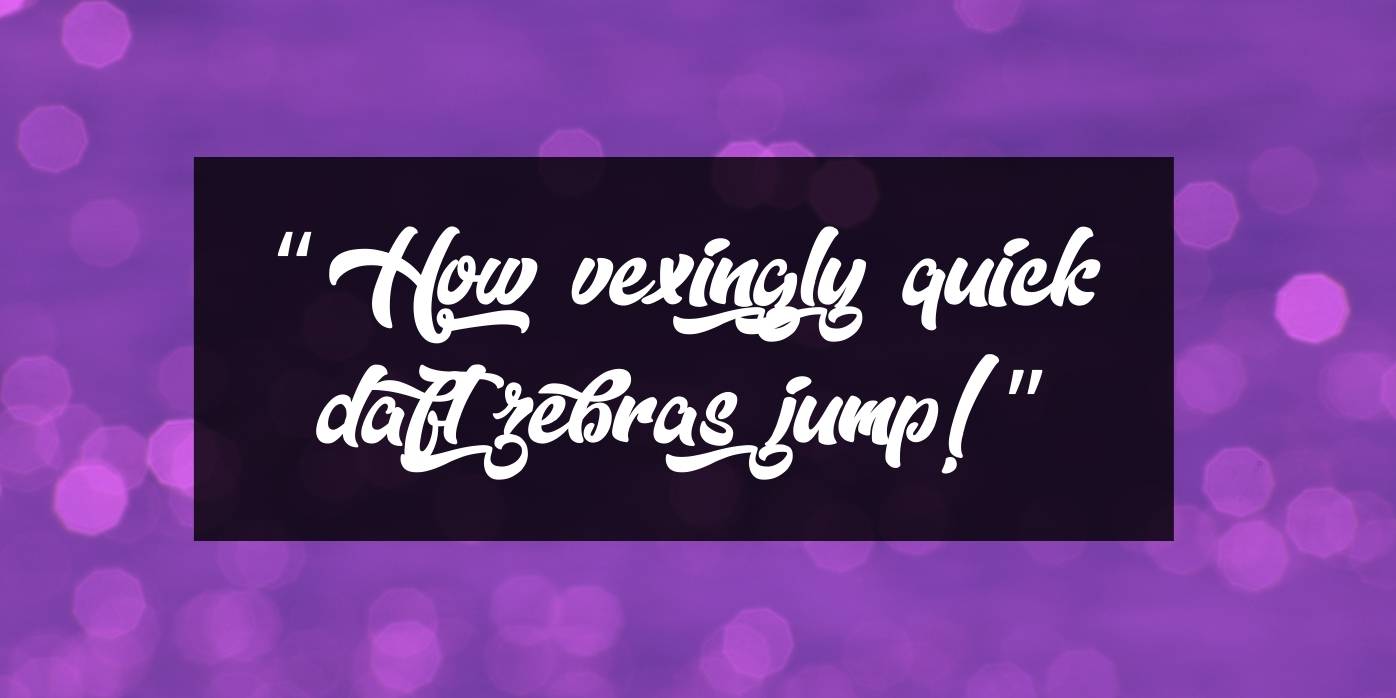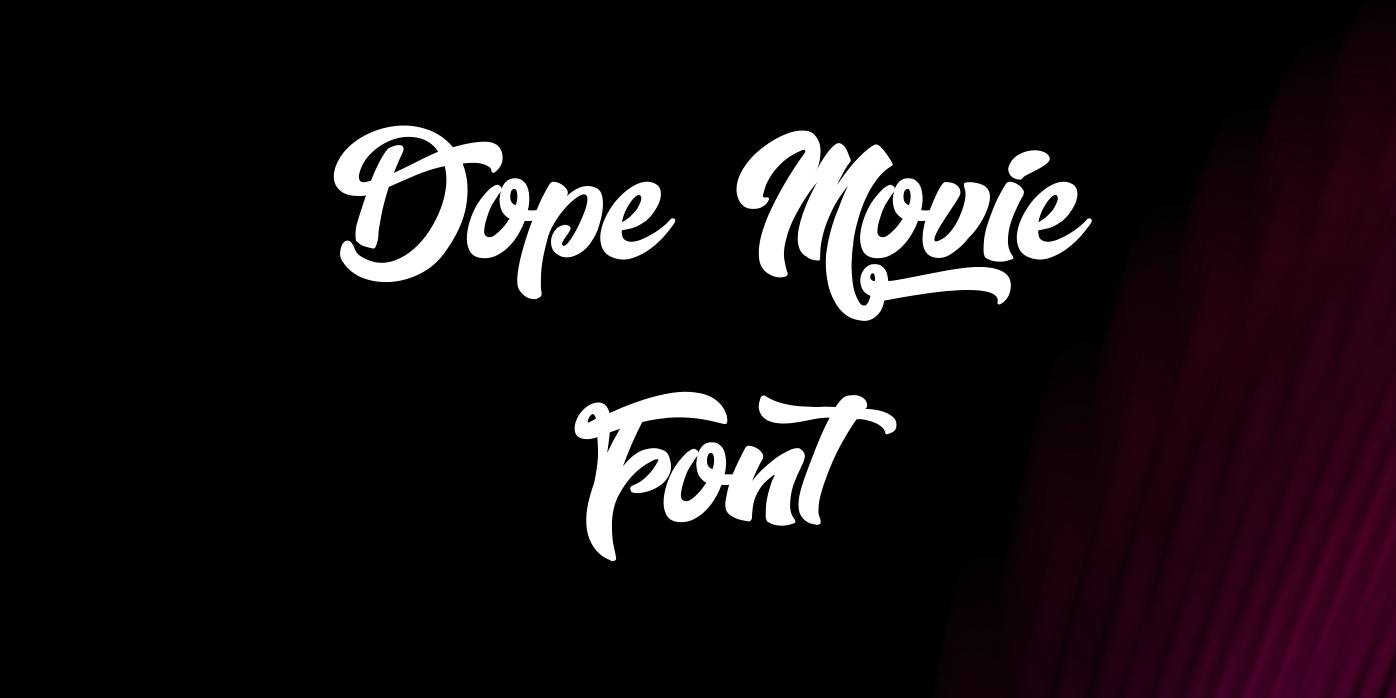
Dope Font
Dope Font is a very classic typeface that belongs to the Script typeface. This amazing typeface was developed by a very elegant designer named Cosme Gonzalez. This font family consists of a total of 06 classic styles. This charming font is mainly used for titles and credits.
It has been featured in many major Hollywood films such as Troy, The Italian Job, and Ocean’s Eleven. This amazing typeface is very versatile and can be used for both formal and informal purposes. It is suitable for Canva. It is a very famous typeface that is best for many designs according to your interest.